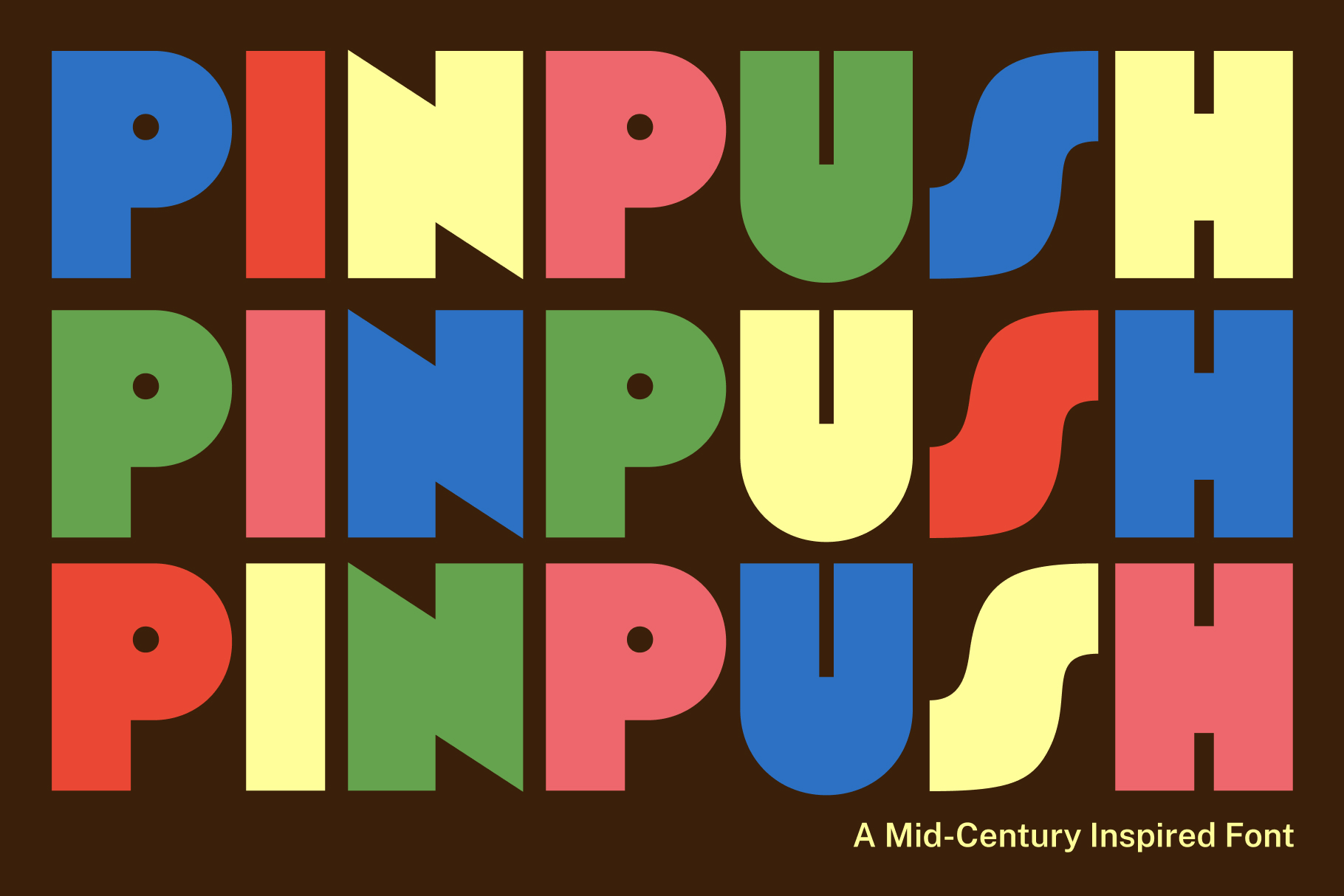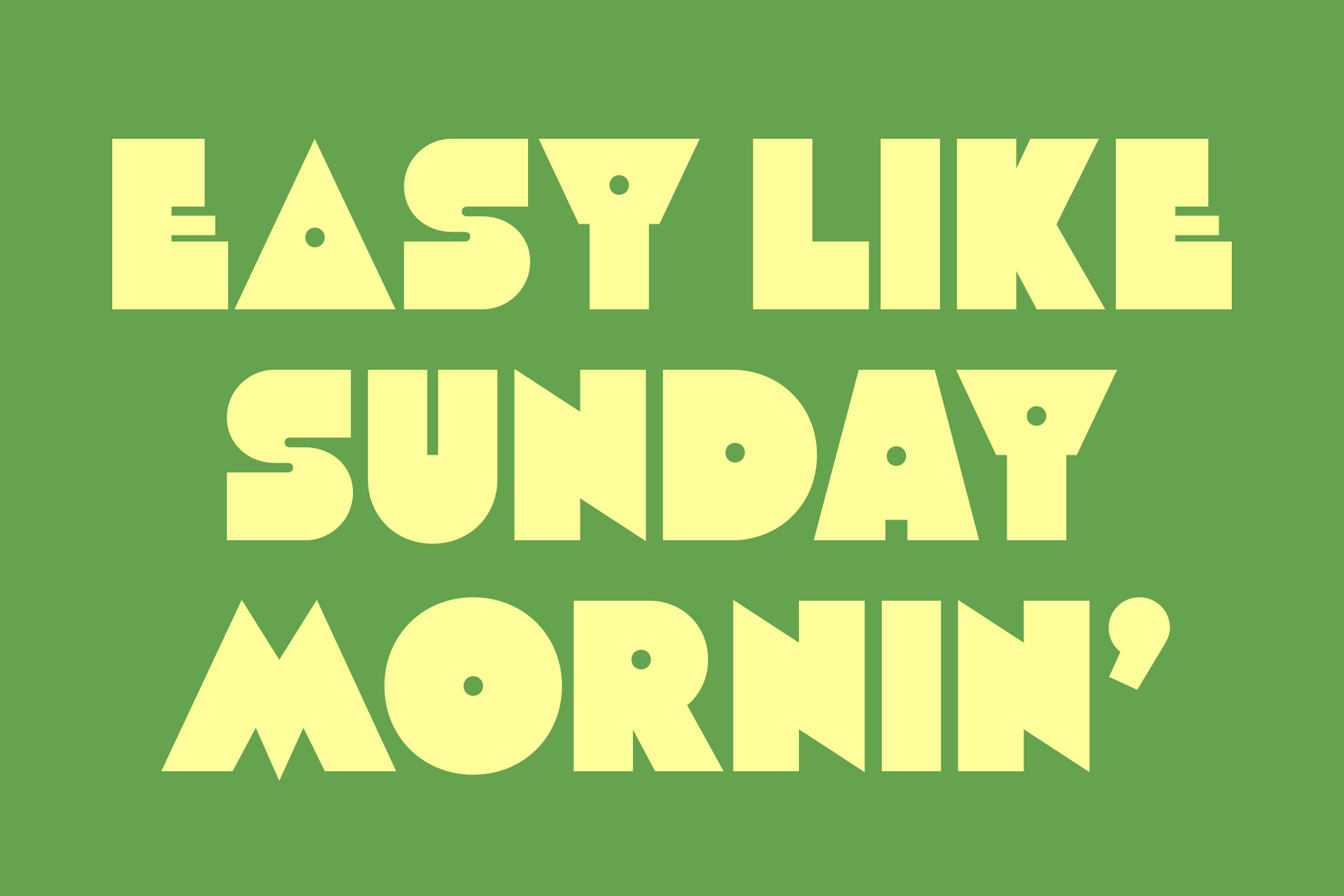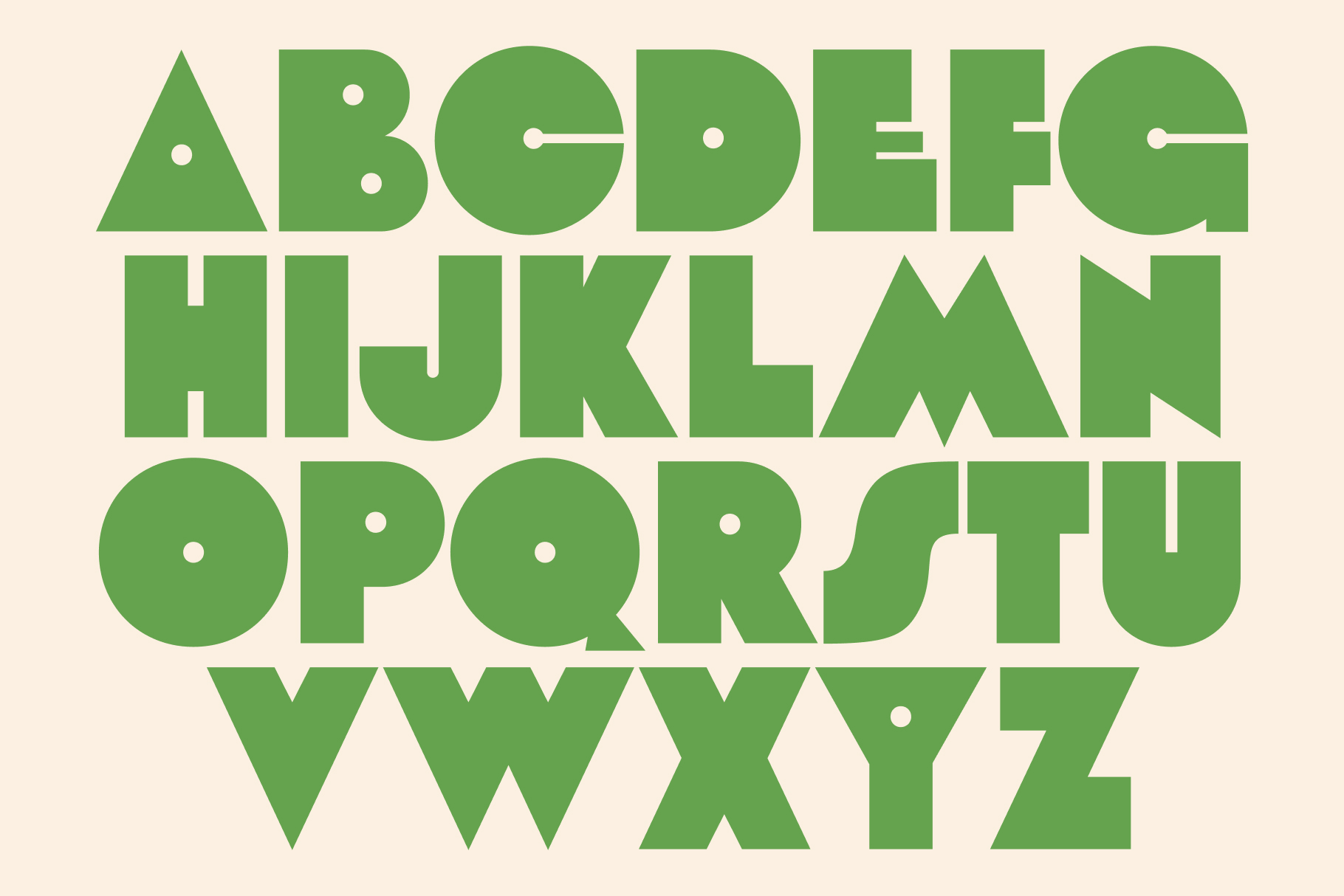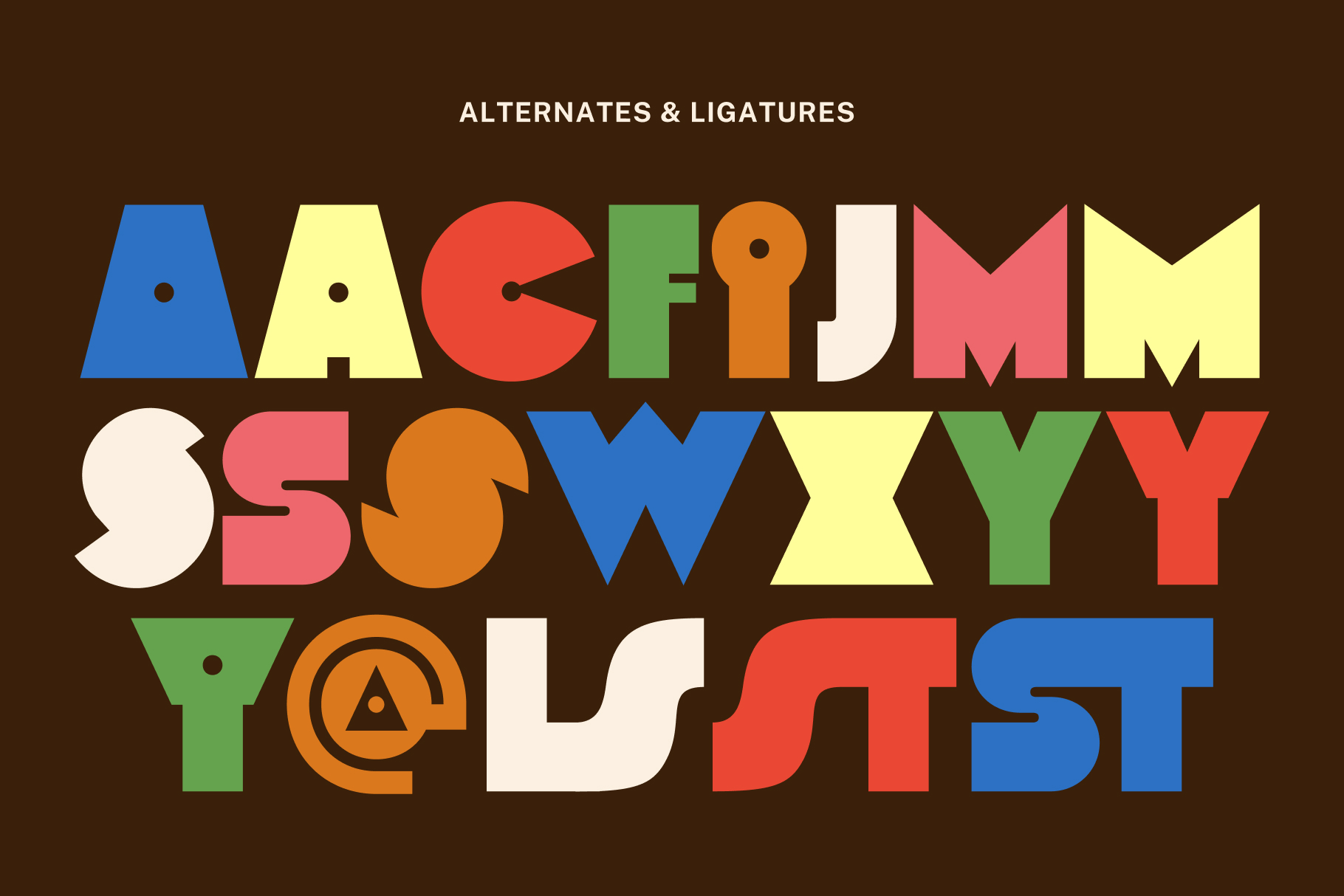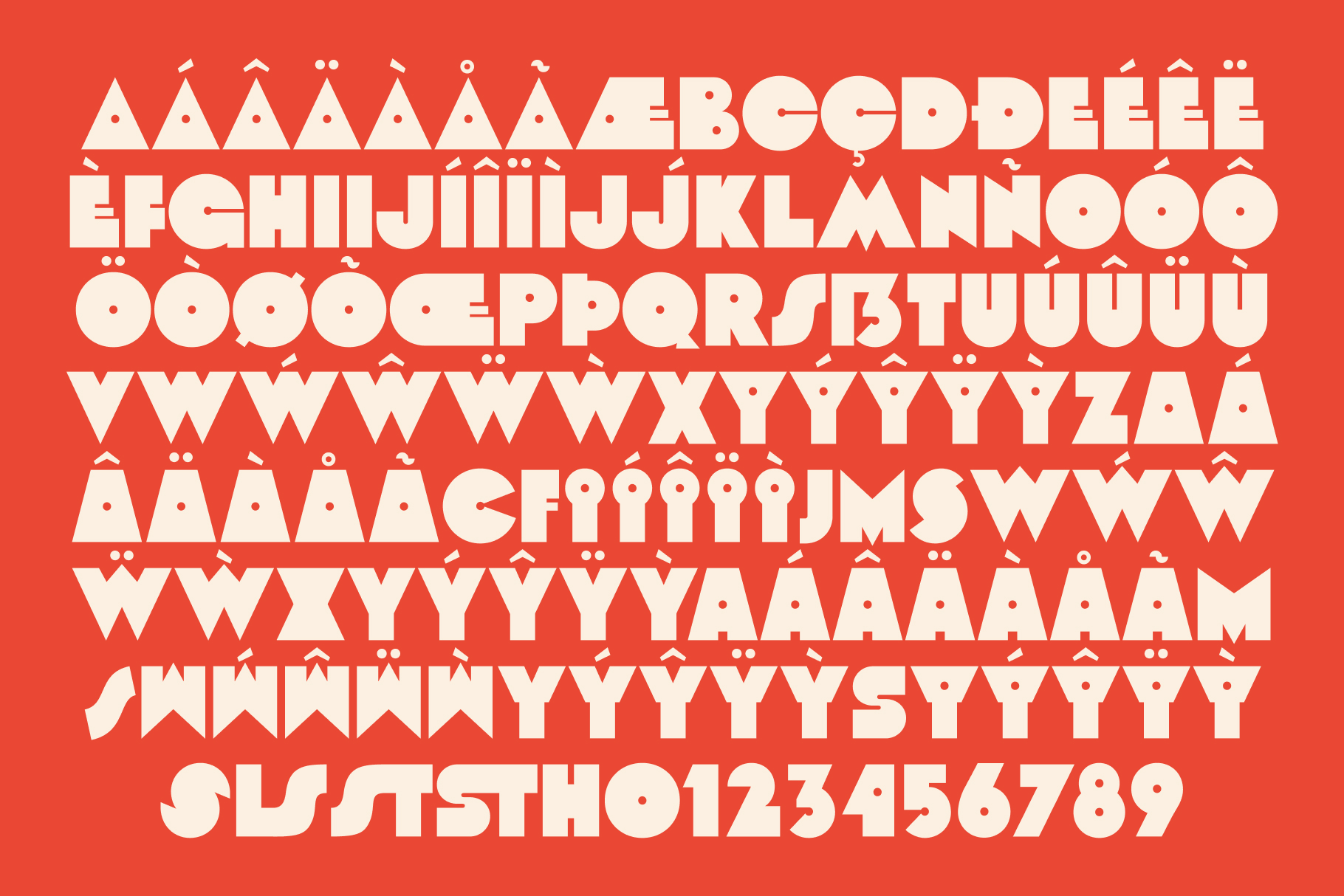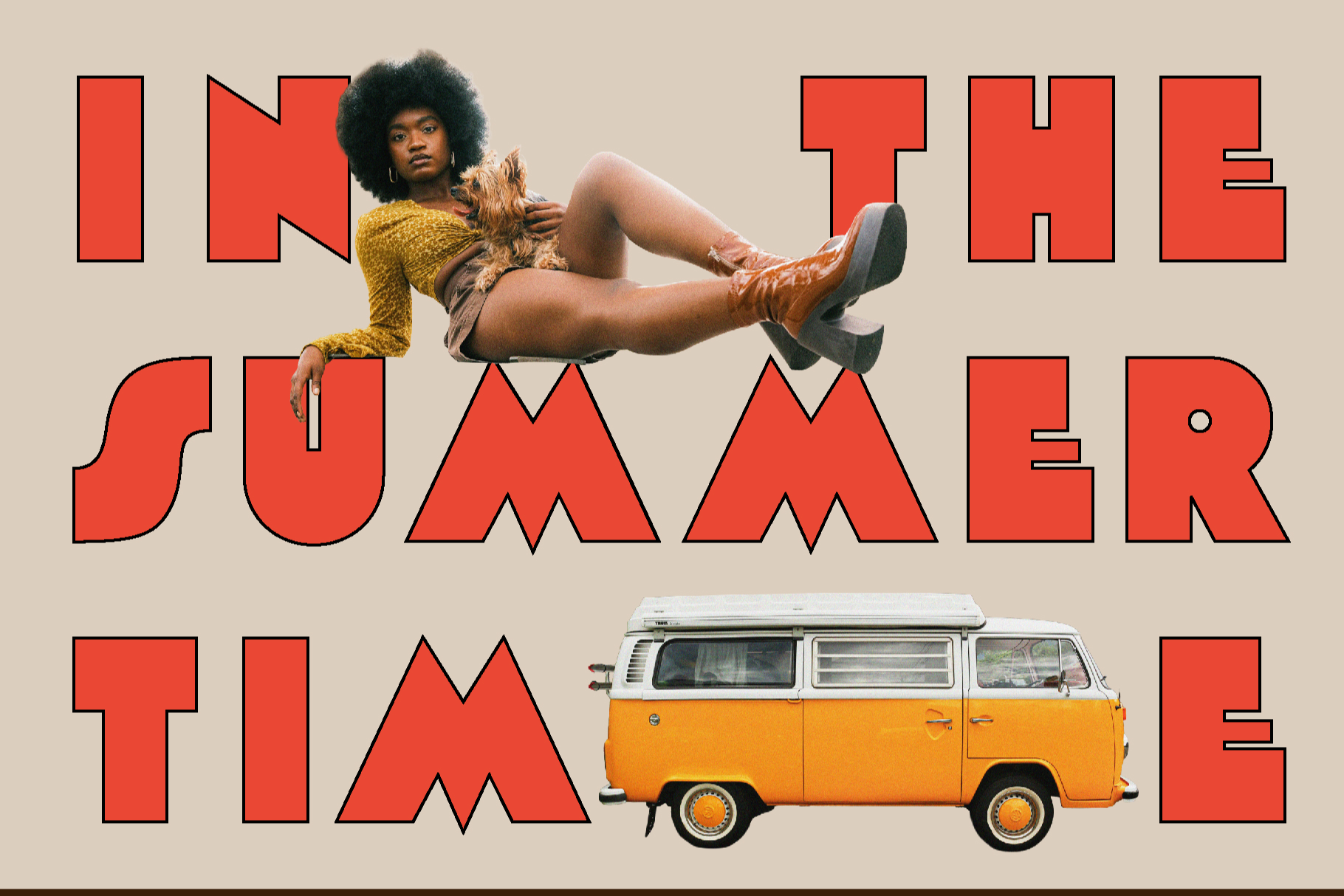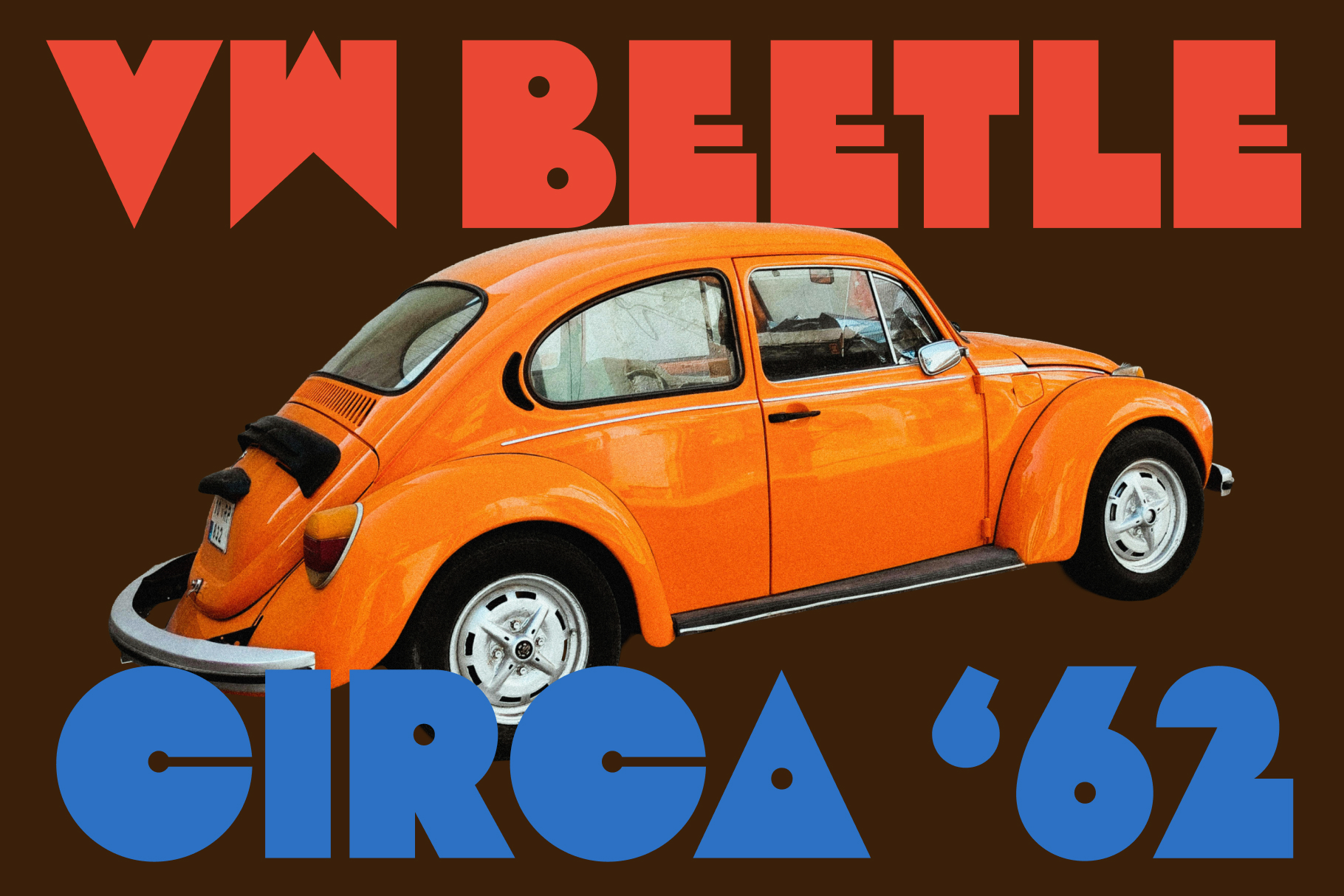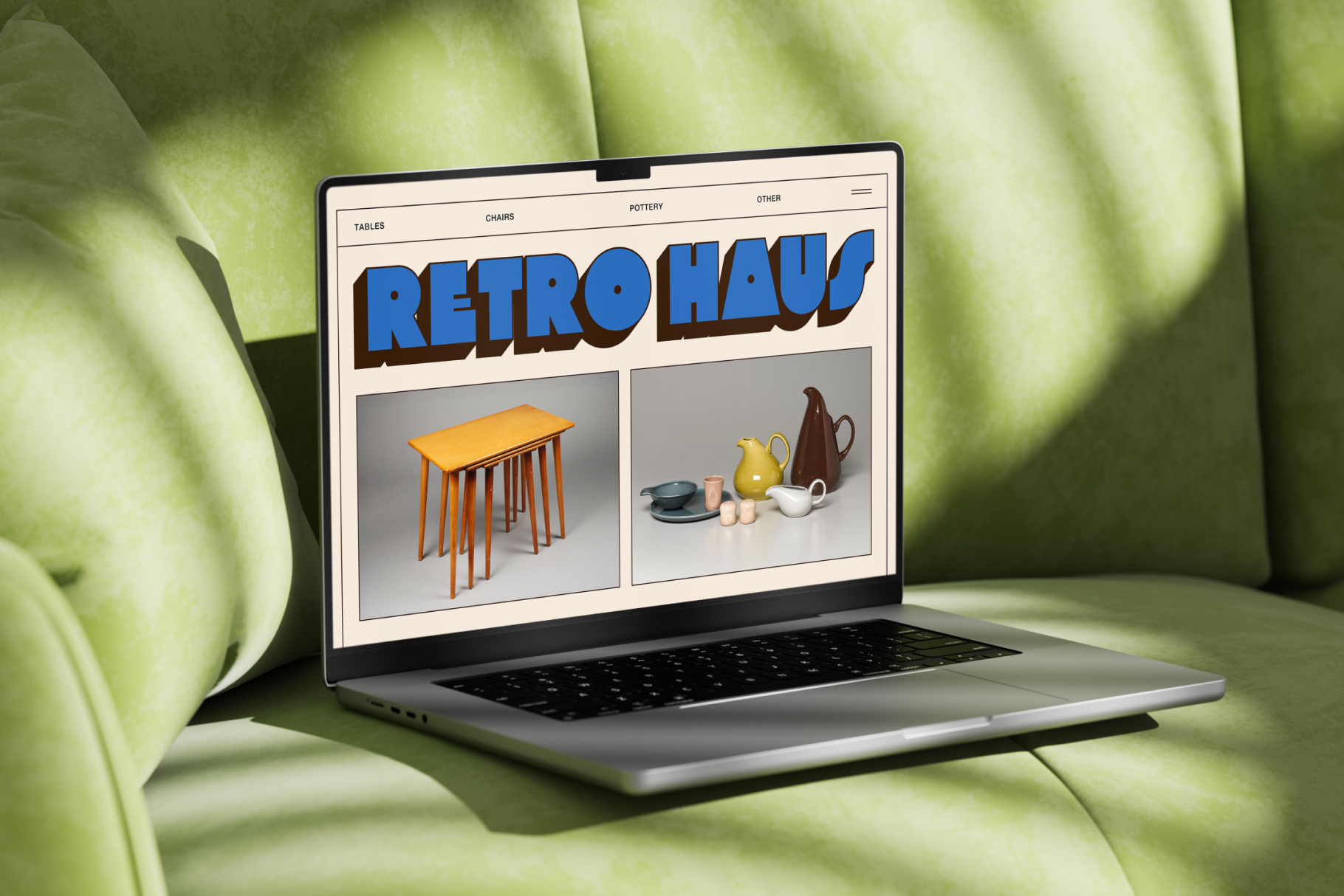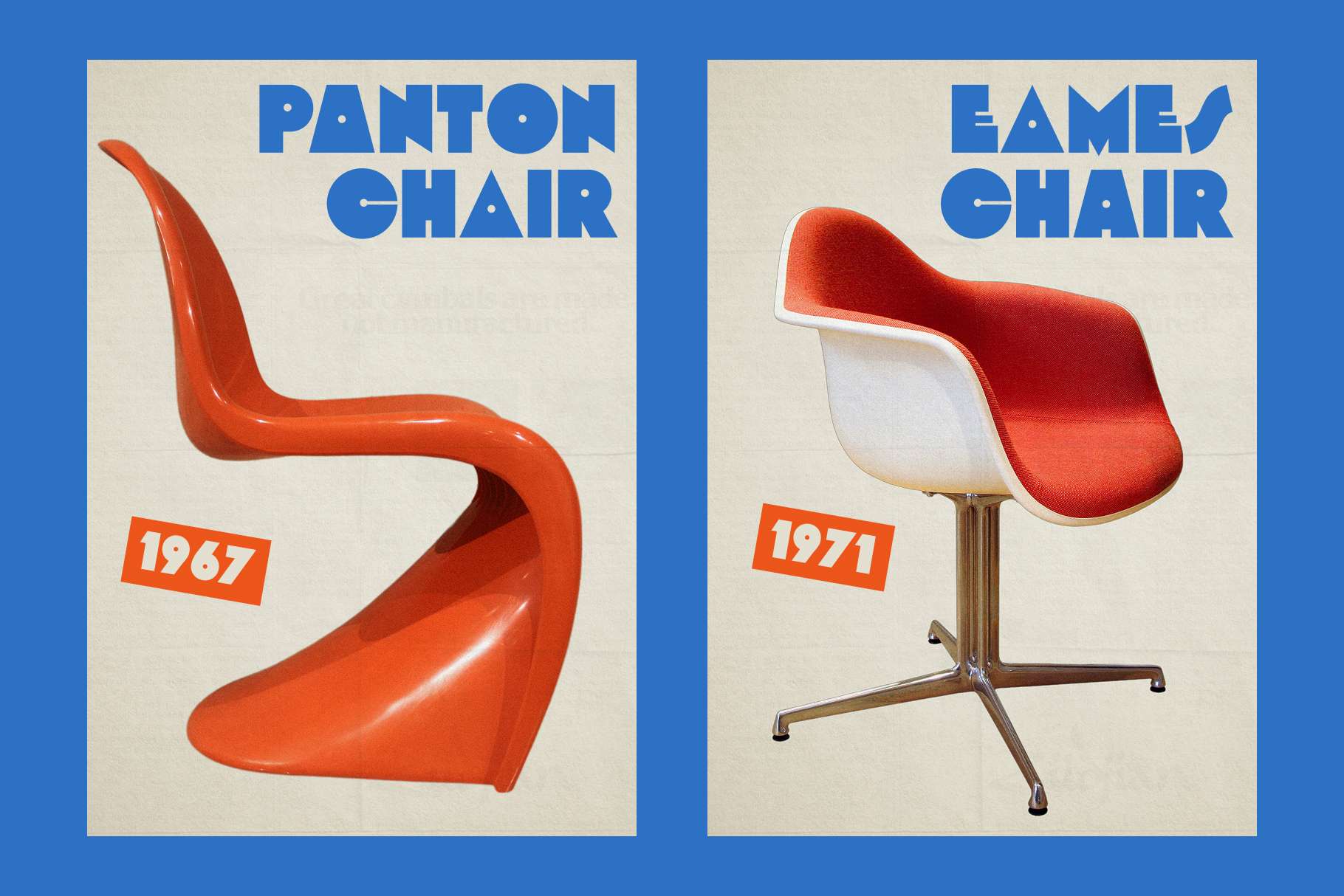
Pinpush
Pinpush is a bold, chunky, retro-inspired all caps display font with geometric shapes and mid-century style.
Discretionary Ligatures
Stylistic Set 1
Stylistic Set 2
Stylistic Set 3
Stylistic Set 4